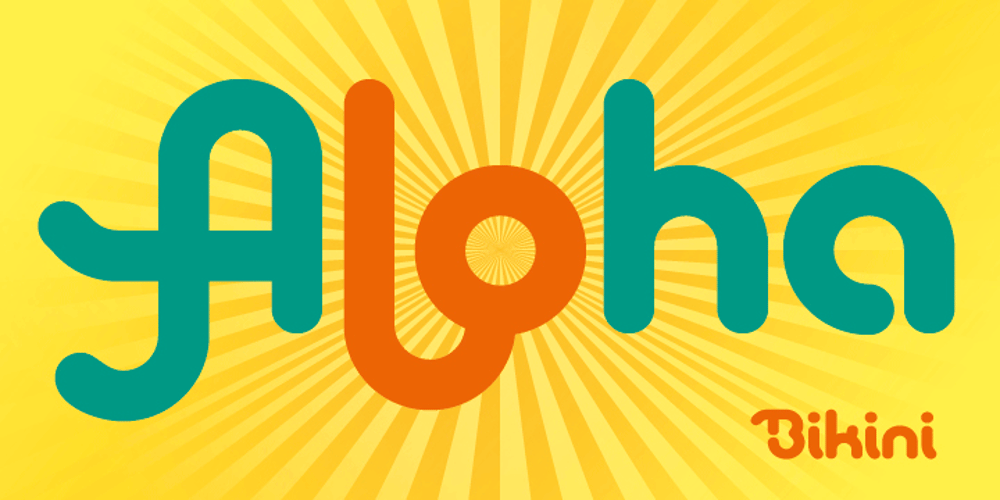
Bikini Font Family was designed by Felix Braden and published by Volcano Type. Bikini contains 1 styles and family package options. Bikini is a display-font that offers designers a variety of opportunities to create a lively and sophisticated typography. The font contains swash-capitals and roman capitals as well as two different forms of lowercase letters for endless combinations. Furthermore, a set of more than 60 ligatures is included. Bikini gets its charm by mixing up constructivist and handmade origination concepts. Although the letters show partially very expressive and overhanging details, the creation is strictly based on a matrix of circles and arcs (see drawing). In spite of its static and geometric basic elements Bikini seems to come to life and to break the rules of the grid, thus it looks somewhat psychedelic.